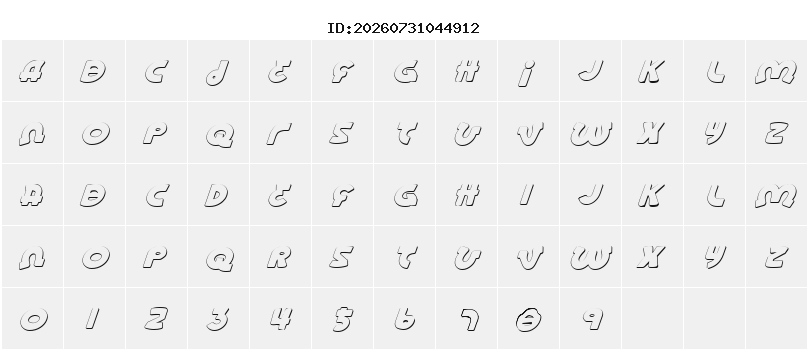
Lionel Shadow Italic Preview
• Font Name: Lionel Shadow Italic
• Full Font Name: Lionel Shadow Italic
About Lionel Shadow Italic.ttf
Lionel Shadow Italic.ttf is a modern, elegant sans-serif font designed for ultimate readability and visual harmony. Perfect for branding, headlines, web design, and print materials.